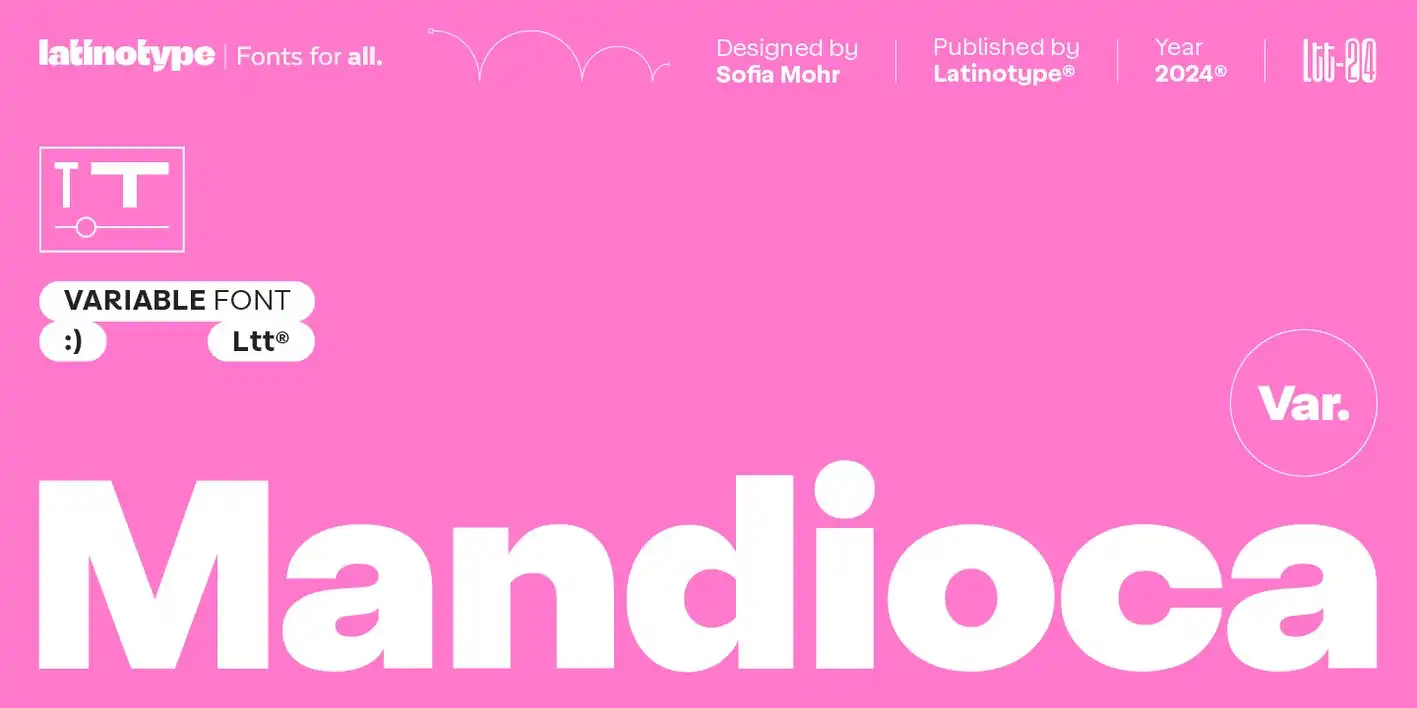
The Mandioca Variable Font is perfectly designed for numerous innovative and adaptive applications including responsive web design, dynamic branding systems, interactive digital interfaces, variable typography experiments, adaptive mobile applications, scalable logo designs, progressive web applications, flexible editorial layouts, multi-platform design systems, and cutting-edge digital experiences. Its revolutionary character makes it particularly effective for tech companies, digital agencies, modern startups, and innovative brands seeking to convey technological advancement, design flexibility, and contemporary sophistication in their visual communications and digital presentations.
What makes the Mandioca Variable Font incredibly exciting is its groundbreaking implementation of variable font technology combined with exceptional design versatility. This innovative typeface represents the future of digital typography, offering unlimited weight and style variations within a single font file while incorporating sophisticated design elements that ensure optimal performance across all modern devices and platforms. The font's captivating character emerges from its adaptive letterforms, scalable proportions, and dynamically adjustable details that create endless design possibilities and seamless user experiences, making it perfect for brands seeking to establish technological leadership and appeal to design-forward, innovation-minded audiences.
The Mandioca Variable Font family encompasses revolutionary variable font technology designed to provide infinite typographic flexibility. The collection features continuously adjustable weight axes ranging from ultra-thin to ultra-black, with many versions offering multiple variable parameters including width, optical size, and custom design axes that enhance the font's adaptability and creative potential. Some editions may include experimental variable features, interactive design elements, and cutting-edge typographic innovations that provide unlimited design options for creating unique responsive treatments and future-ready brand applications.
Progressive designers and variable font specialists consistently choose the Mandioca Variable Font Free Download for its exceptional technological innovation and design flexibility. The font features advanced variable font engineering that ensures optimal performance across all modern browsers and design software, enabling seamless weight transitions and responsive typography experiences. Its cutting-edge construction maintains clarity and style consistency across infinite weight variations, while the comprehensive character set includes full Unicode support, extensive language coverage, and advanced OpenType features for professional variable typography projects and global digital communications.
The Mandioca Variable Font represents the pinnacle of modern typography technology, combining variable font innovation with contemporary design excellence. Its adaptive aesthetic demonstrates technological sophistication while maintaining the versatility required for diverse digital applications. The font's remarkable flexibility allows it to work effectively in both static design contexts and dynamic responsive environments, ensuring consistent innovation across progressive websites, interactive applications, variable branding systems, and next-generation digital experiences.